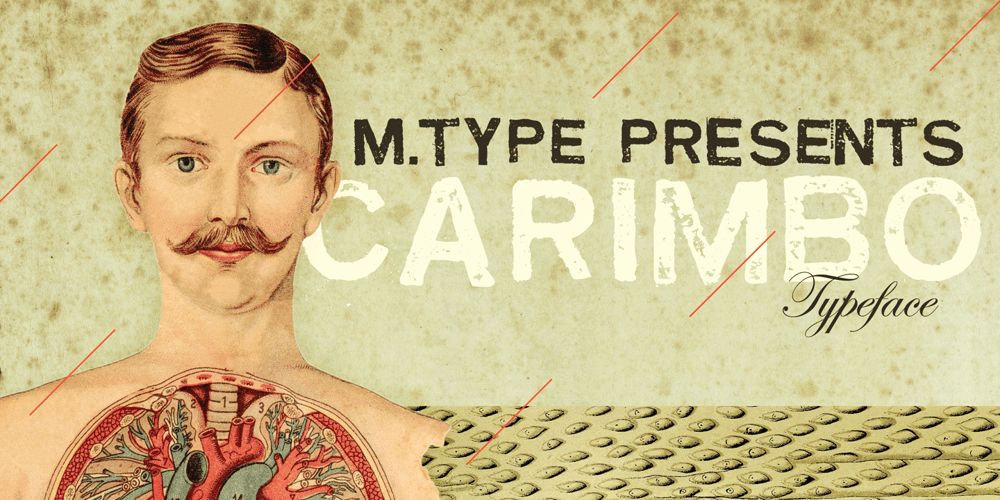
Carimbo Font Family was designed by Eduardo Recife and published by Misprinted Type. Carimbo contains 1 styles and family package options. Carimbo is probably one of the most handy dirty fonts around. It works well with most projects, creating that stamp-like effect, without being too much distressed. It has 2 uppercase variations, so you can combine letters without repeating them in the same word.